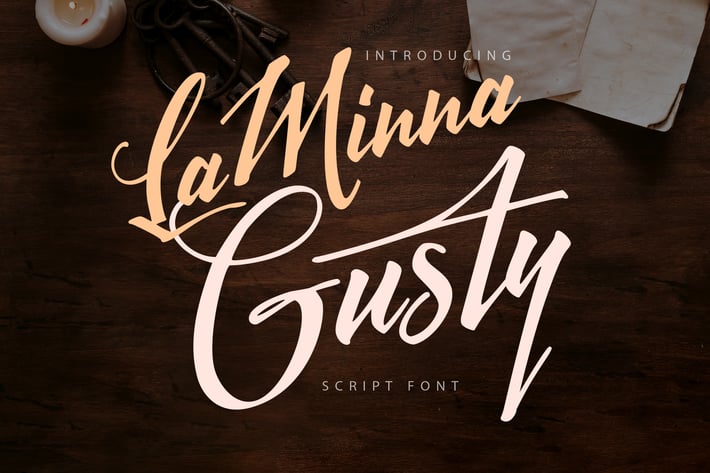
LaMinna Gusty | Script Font
LaMinna Gusty | Script Font with a calligraphy style, So beautiful on invitation like greeting cards, branding materials, business cards, quotes, posters, and more!